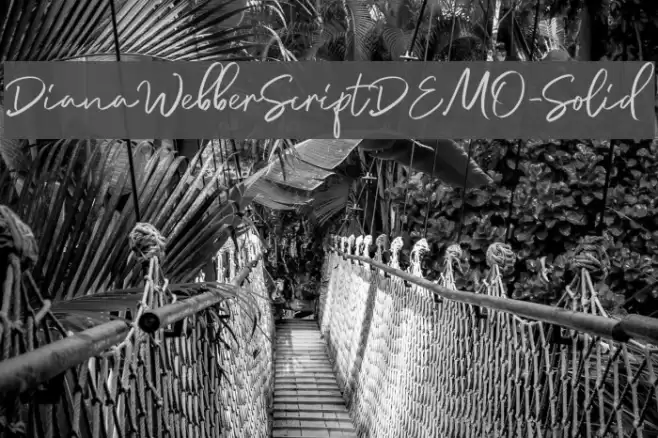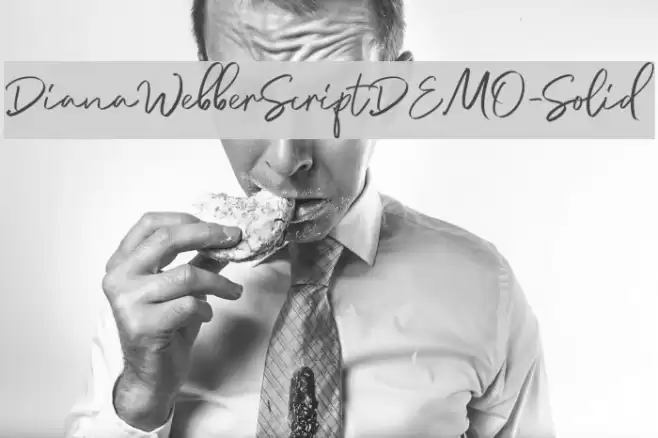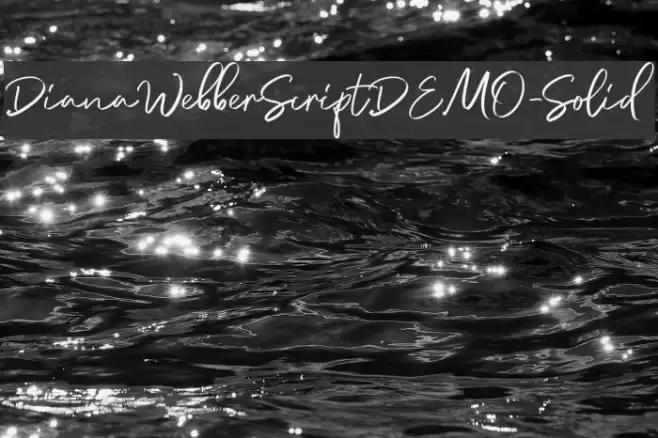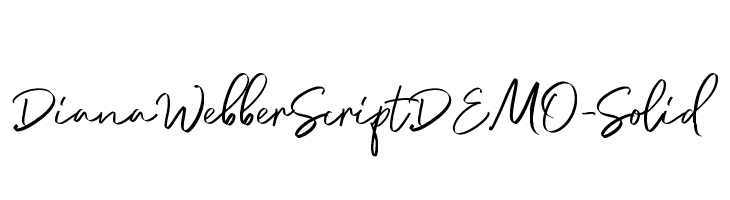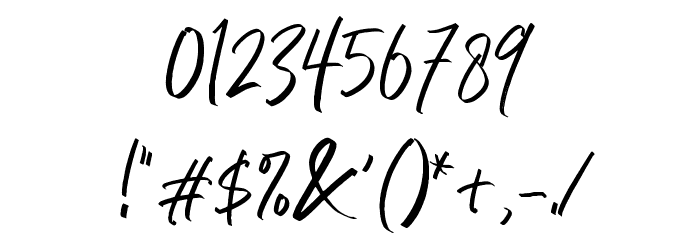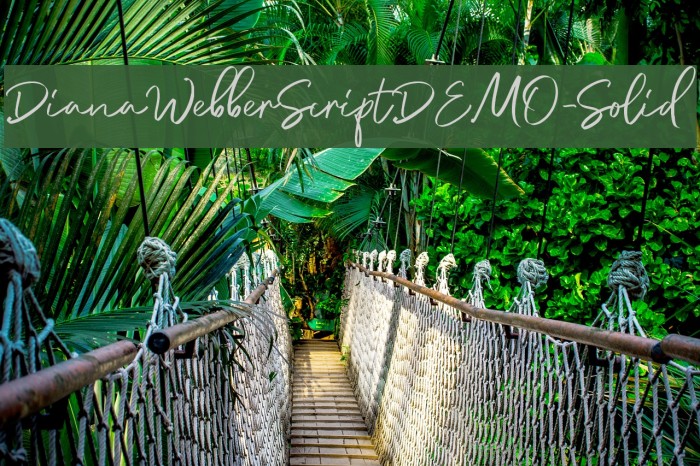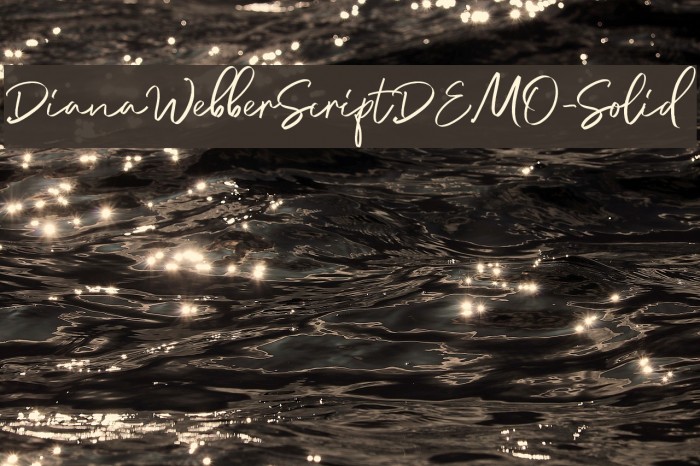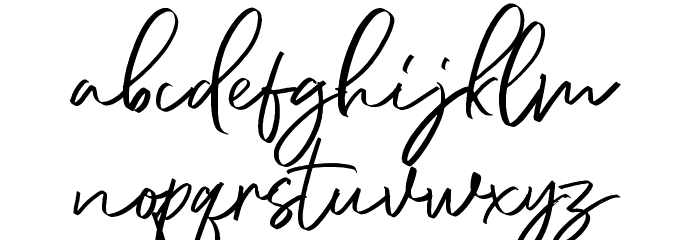
DianaWebberScriptDEMO-Solid Font
DianaWebberScriptDEMO-Solid Description
This font features a dynamic and fluid script style, characterized by its elegant and flowing letterforms. The uppercase letters exhibit a sense of movement with their sweeping curves and varying stroke widths, while the lowercase letters maintain a consistent rhythm and grace. The numerals are designed with a similar flair, ensuring cohesion across all characters. The special characters complement the overall aesthetic, adding versatility to the font. Its handwritten appearance gives it a personal and artistic touch, making it suitable for creative and expressive projects.
A dynamic and fluid script font with elegant, flowing letterforms from Uncategorized fonts.
- Proposed Projects: Ideal for wedding invitations, greeting cards, branding, and artistic projects that require a personal touch.
- Use Case: Logos, Invitations, Artistic projects